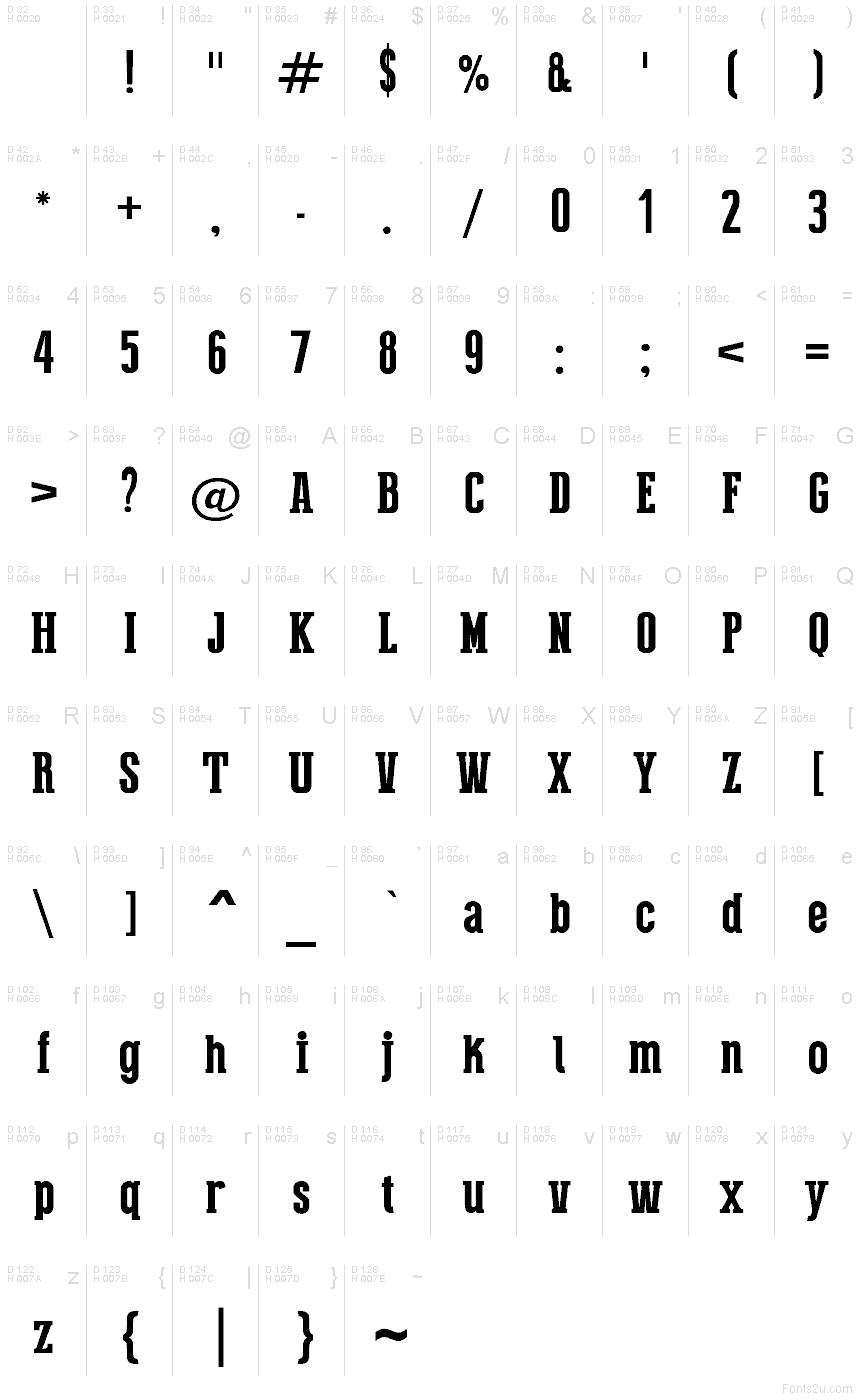
Press Serif Cool Regular
Press Serif Cool font is a condensed free serif font from Galdino Otten Fonts. The font combines the best of classic design influences, along with a bold and strong presence in each character. It is the winner or choice of projects where an authoritative look is needed. Although contemporary, it has a certain mood that feels as if vintage.
Use it freely for your magazine layouts, film posters typographic titles, menus for clothing stores and restaurants, wine labels, architectural designs, stationery items, graphic logos and icons for insurance companies or law firms logos.